An amazing collection of perfect free and premium autumn fonts for your fall designs. Can’t believe that summer is over and step by step the autumn takes a root. So, we come out with more as 15 adorable autum fonts for your typography designs, greeting cards, logos and more others. Keep a good mood and enjoy.
Autumn in Novemeber Font (Free)
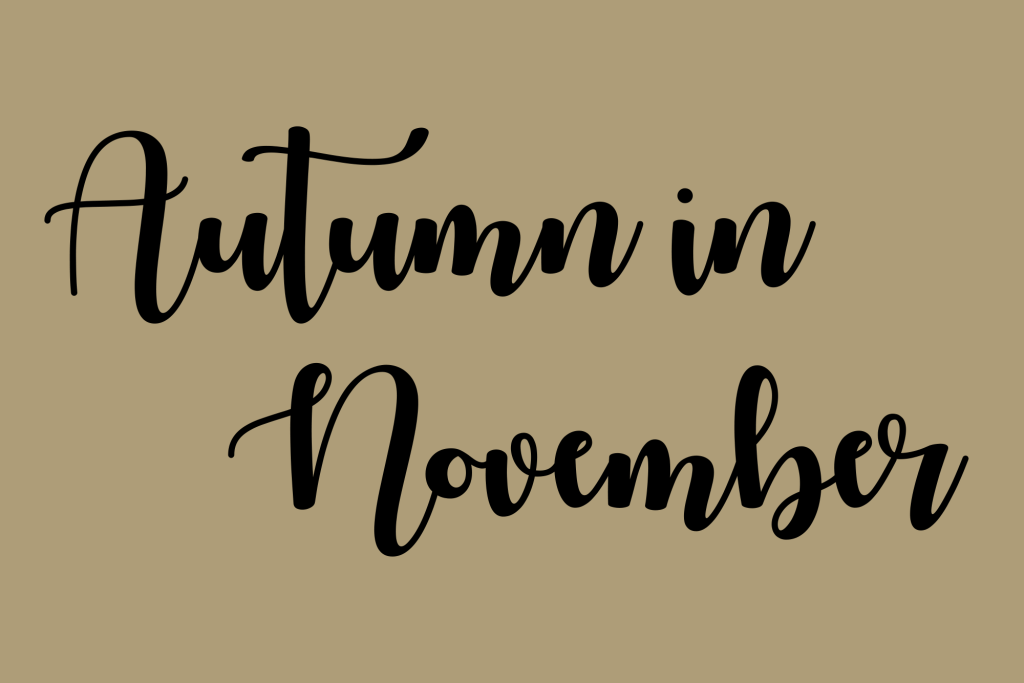
It is a beautiful calligraphy font that is truly bold. This font would be great on any type of fall print, stationery, or other fall craft projects. Free for personal use only.
Autumn Display Font (Free)
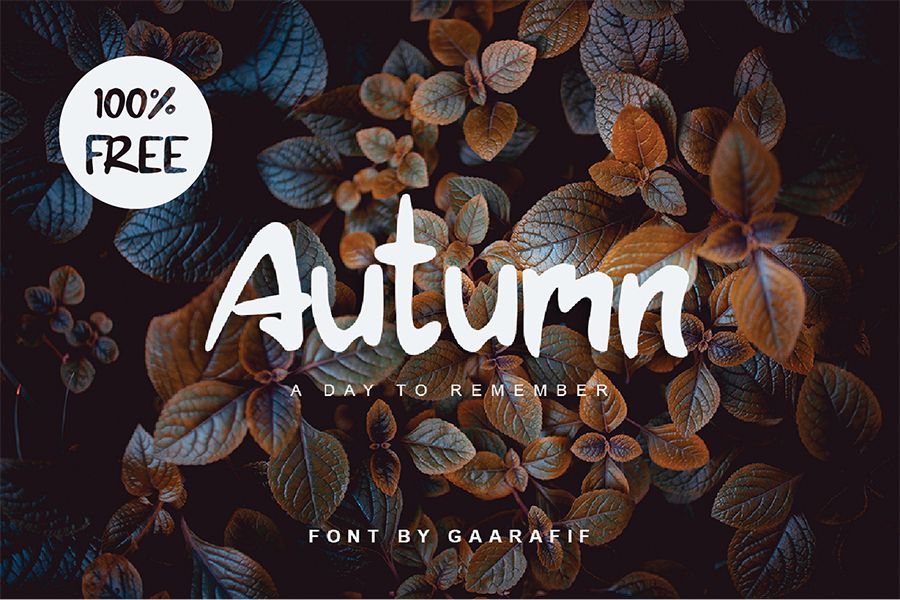
It is a simply bold and fun display font. Perfect for branding, logo, headline, apparel design, prints and other display purposes. Free for personal and commercial use.
Salted Mocha Font (Free)
It’s loopy strokes & bouncing baseline give it a fun playful feeling. This font is perfect for branding, invitations, quotes, and prints that stand out.
Wild Youth Font (Free)
Wild Youth is a modern font with the distinct influence of adventure and the great outdoors. Perfect for logos, quotes, stationary, apparel and much more.
Autumn Days Font (Free)
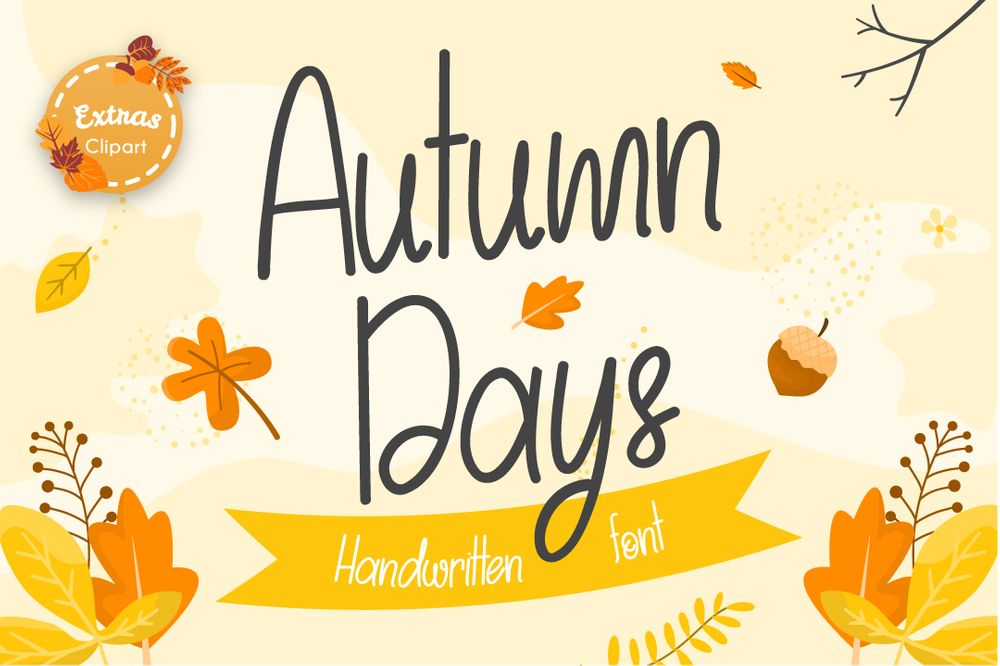
Fall in love with its incredibly versatile autumn font and use it to create gorgeous wedding invitations, beautiful stationary art, eye-catching social media posts, and much more! Free for personal use only.
Kelly & Ryan Font
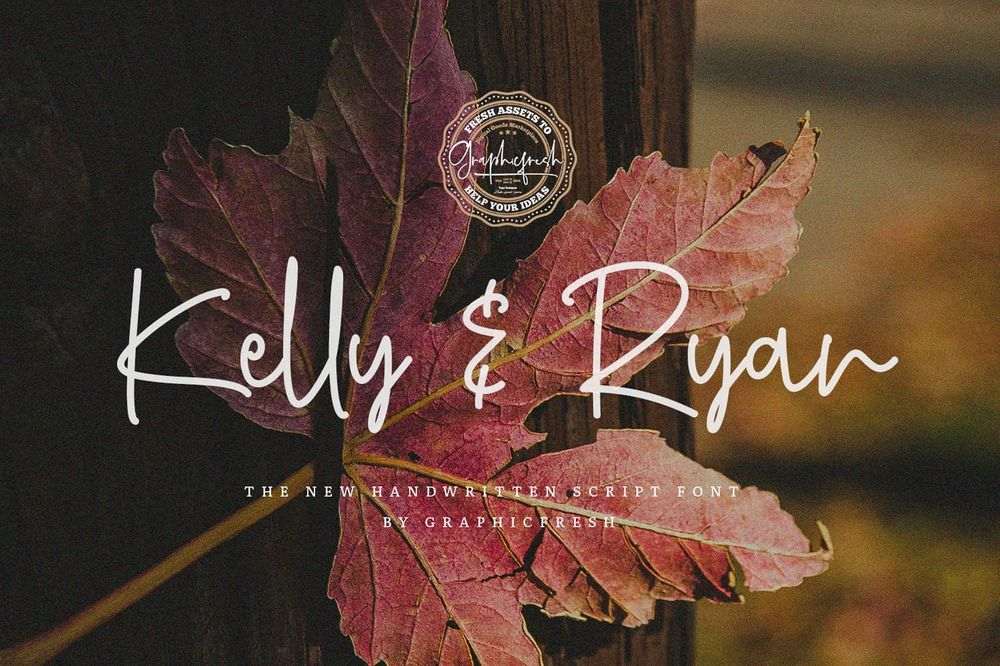
It comes with an elegant and feminine style which is perfect to make any design stand out! This font is perfect for branding, wedding invites, magazines, mugs, business cards, quotes, posters, and more.
Earth Tracks Font
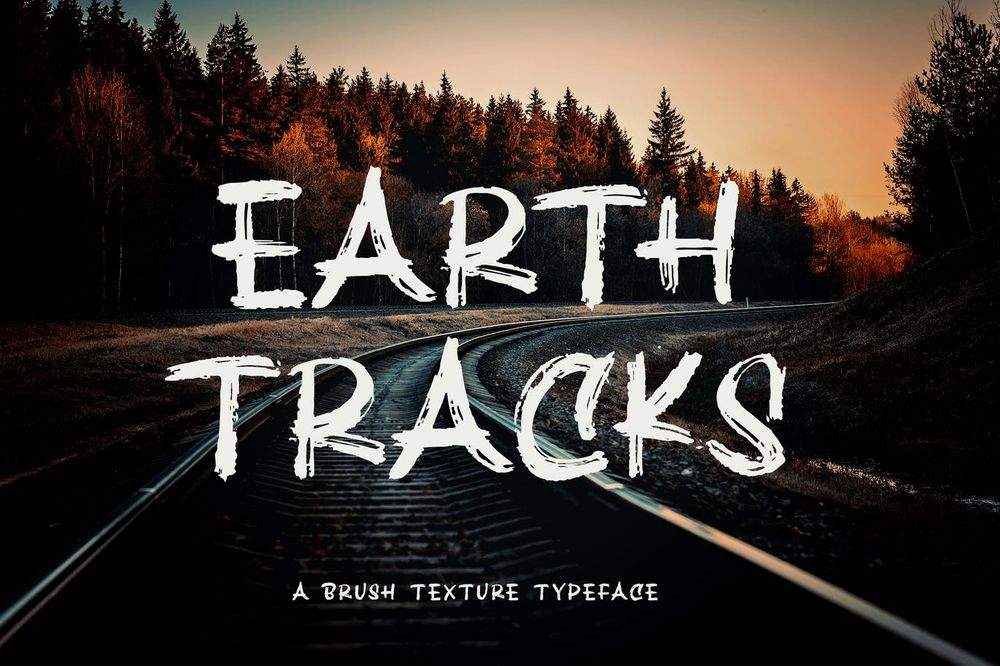
Simple bold brush font for your fall designs. Try to use it on Wedding invitation, photography, branding, poster, quote, and many more.
Tall Fall Font
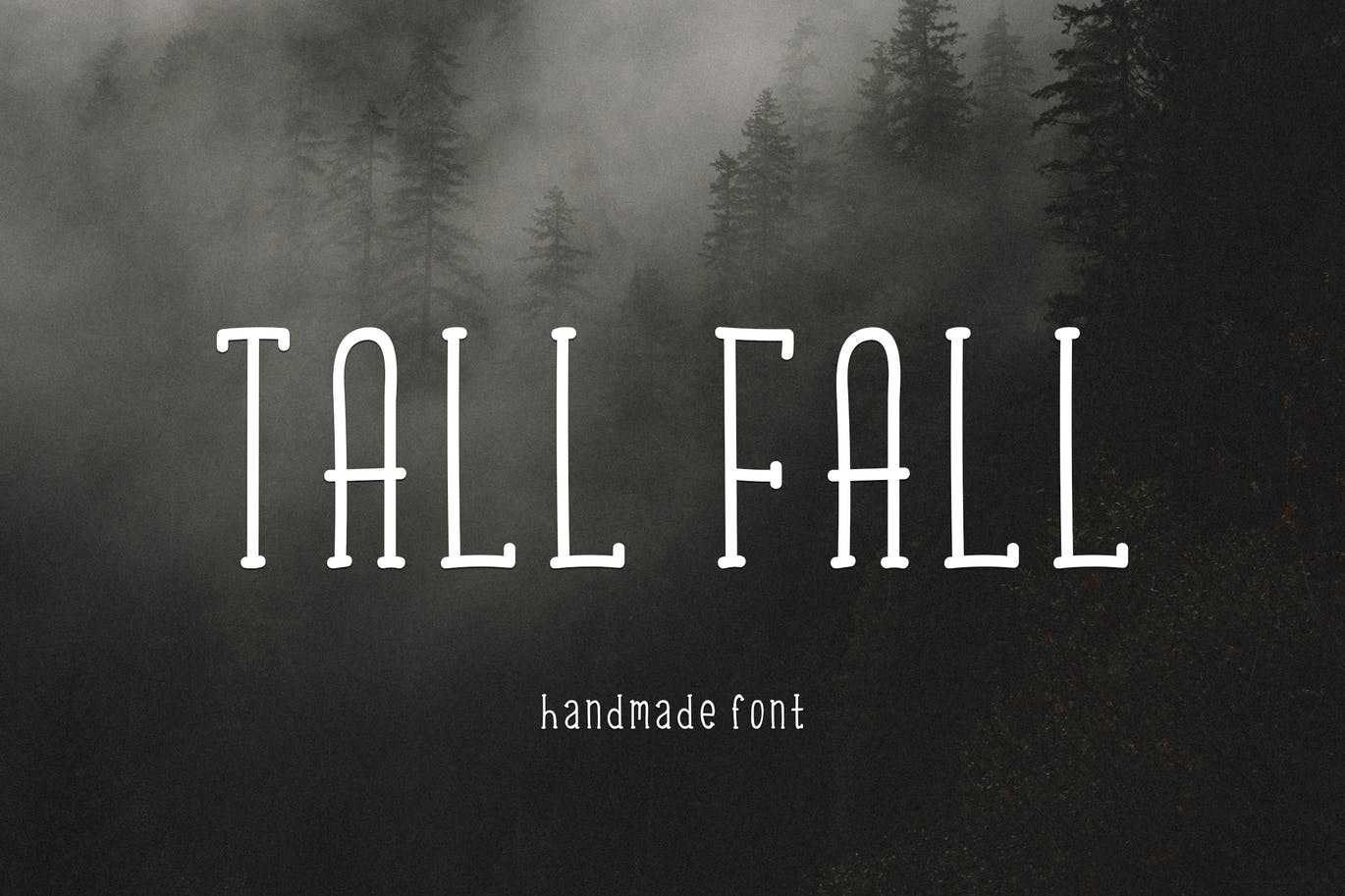
Tall Fall is handwritten serif tall font perfect for food menu, quotes, blog header, poster, branding, logo, banner and etc.
Fall Harvest Font
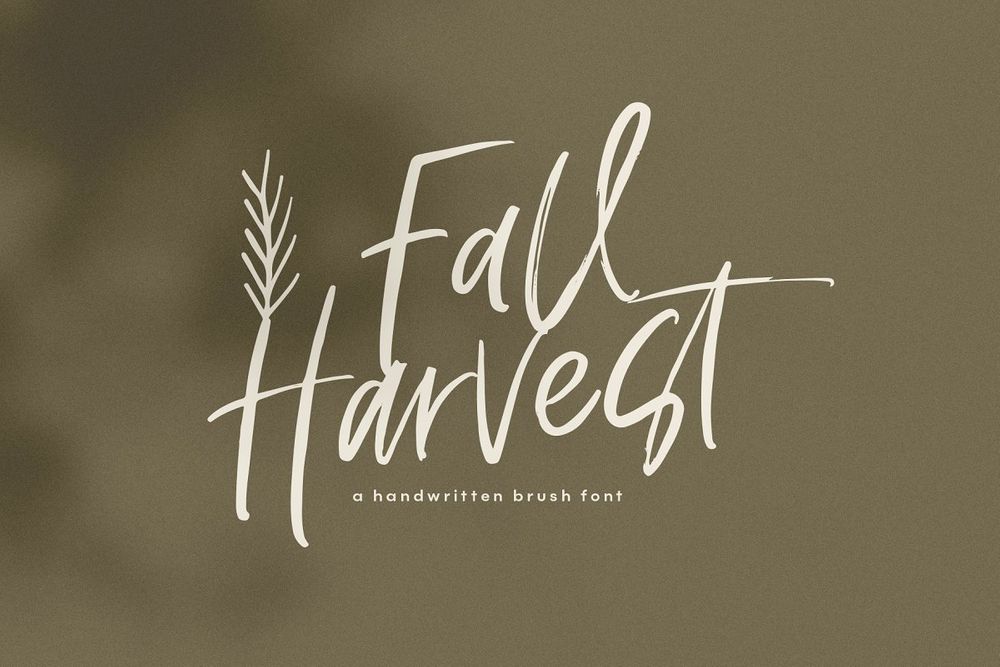
Fall Harvest is a handwritten script font written with a brush pen. This font has an authentically messy look. Perfect for modern projects, headings, blogs, logos, signs, brandings, invitations and etc.
My Autumn Font
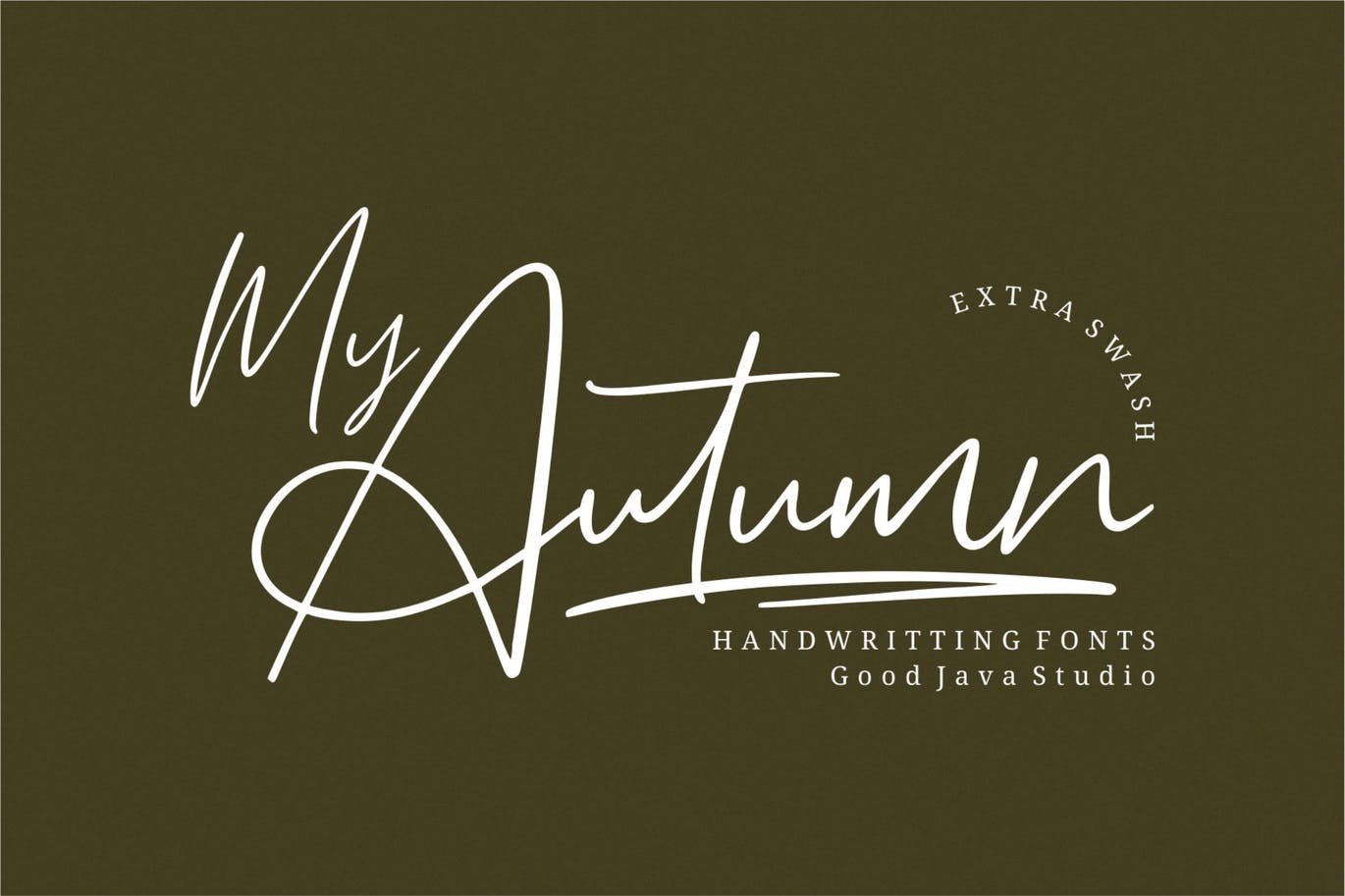
It is a natural & modern handwritten signature font. I’ts perfect for logo, invitation, stationery, wedding designs, social media posts, advertisements, product packaging and etc.
Dandelion Fall Font
This font is more than just another script font. It encapsulates the essence of luxury and personalization with each stroke and every curve. It is perfect for headings, logos, business cards, printed quotes, wedding invitations, cards, packaging and etc.
Autumn Fairy Signature Font
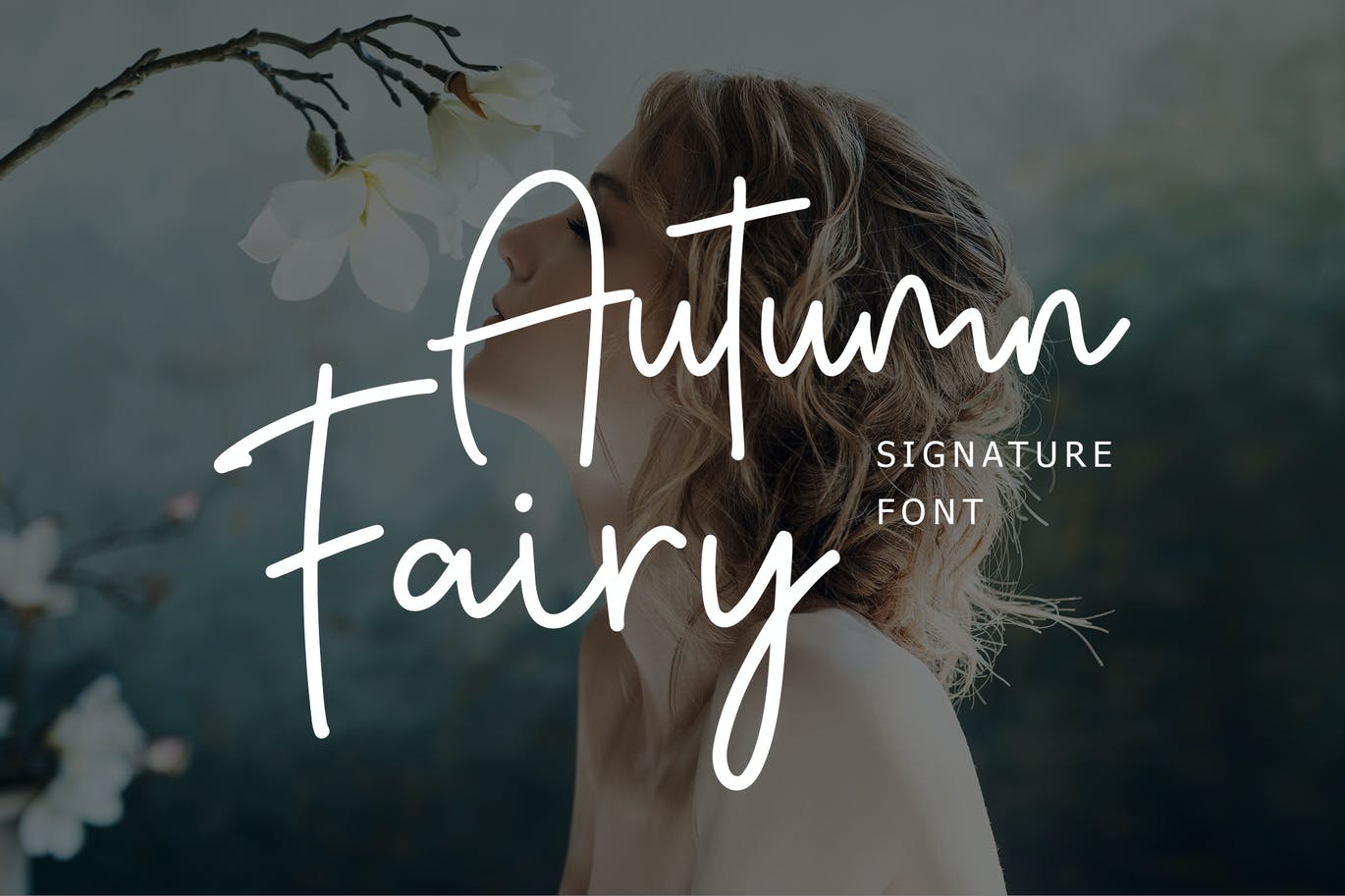
It is a modern look script font. Perfect for branding projects, logos, wedding designs, social media posts, advertisements, product packaging, t-shirt designs, product designs, labels and etc.
Katrine Font
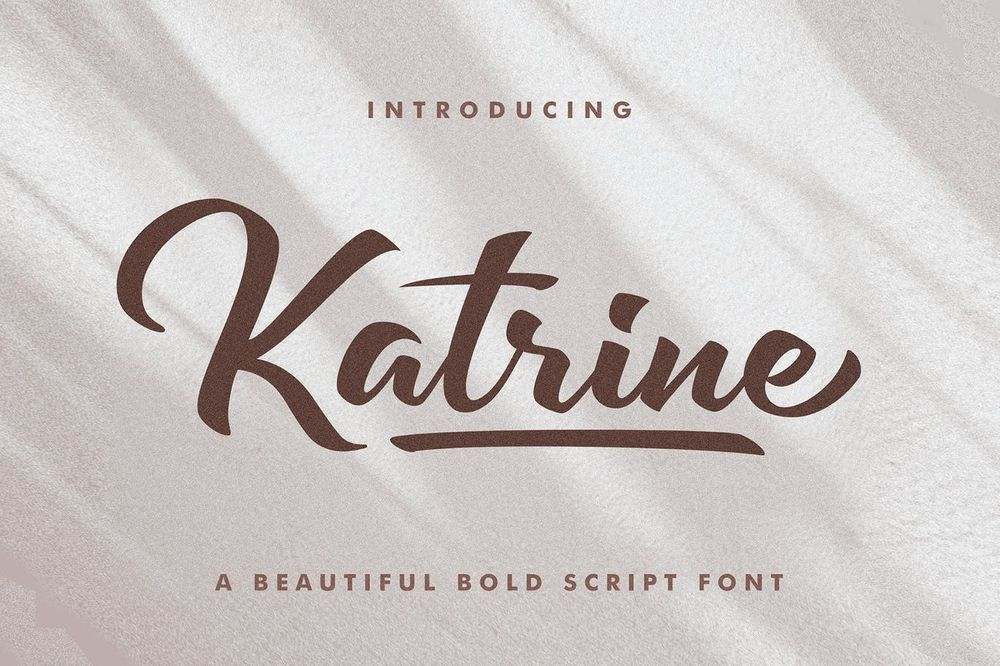
Katrine is a bold and unique handwritten font with a lovely twist. Great for logos, packaging, t-shirt designs, product designs, labels and etc.
Maple Memories Script Font
It is a delicate and incredibly handwritten font. Fall in love with its incredibly versatile style and use it to create spectacular designs like logos, greeting cards, packaging, t-shirt designs, product designs, labels and etc.
Marcelly Font
This signature style font is cool for branding, birthday invites, childern books, mugs, business cards, quotes, posters, and etc.
Marons Font
This maron font has an elegant style and combined with scripts and serif fonts. You canan create logo designs, header text, t-shirt designs, youtube cover text, wedding designs, and others with many variations of swash options.
Cephalonia Font
Cephalonia is a handwritten font that included many opentype features. Including alternates, ligature, and underline. Perfect for logos, branding, packaging designs, greeting cards, wedding invitations and etc.
Forever Grateful Font
Forever Grateful is a playful, hand-drawn script. Perfect for thanksgiving cards, greeting, invitations, logos, branding and etc.
Falling Leaves Script Font Trio
Falling Leaves is a print/script font duo. Perfect for branding, quotes, social media, blogs, logos, signs, and etc.
Autumn Mood Font Duo
Autumn Mood is a beautiful high fashion font duo that makes for gorgeous logos, posters, wedding invitations, blog posts, social media, and etc.
Autumn Spice Display Font
Autumn Spice is a beautiful fall decorative font for your designs like posters, lettering, greeting cards, thanksgiving flyers and etc.
Fall Ember Calligraphy Font
Fall Ember has an effortless yet refined quality, making it an excellent fit for projects of all types like signatures, lettering, posters, flyers, greeting cards and etc.
This modern sans-serif font was painted with a paintbrush to add that handmade, personal touch to your design work. Perfect for magazine layouts, packaging, quotes, logos and branding, greeting cards, window art, menus, scrapbooking, recipe books, and etc.
Edinburgh SVG Font
Edinburgh is handmade font that contains the newest font format, SVG, with two another format. You can use these fonts for various purposes such as making realistic handwriting, for promotions, or other purposes that will make your design more real as handmade.